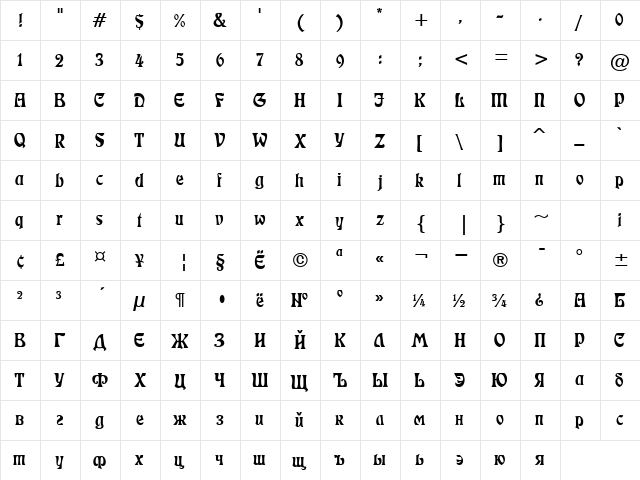
Decor6Di Regular
Design Context for Decor6Di Typeface
Decor6Di is a composed and adaptable typeface that performs quietly and consistently across a wide range of design contexts.